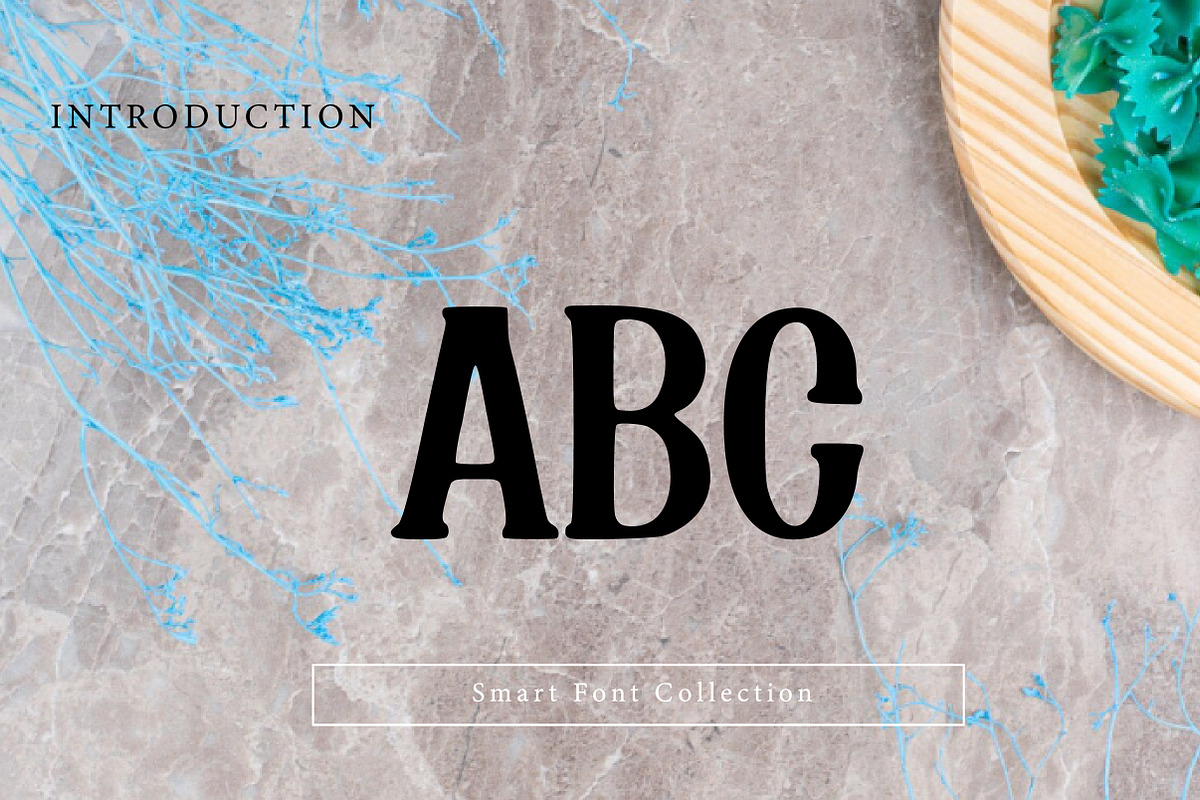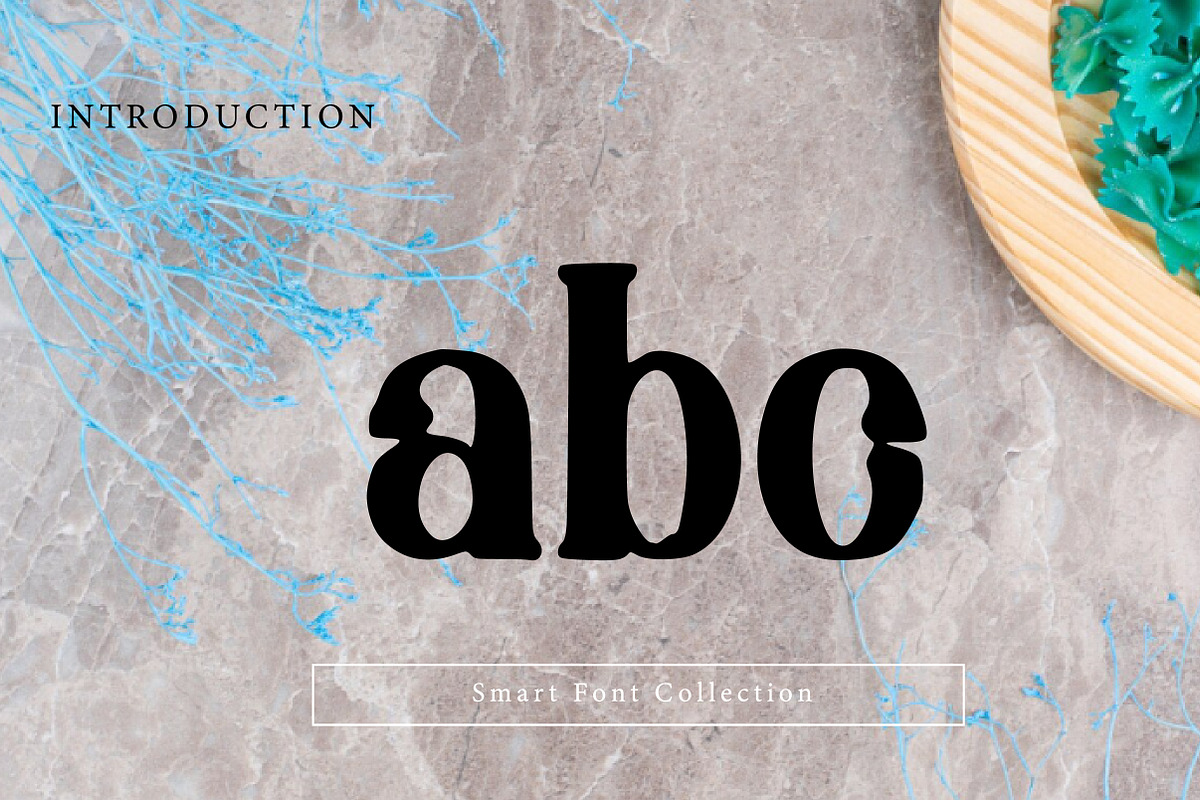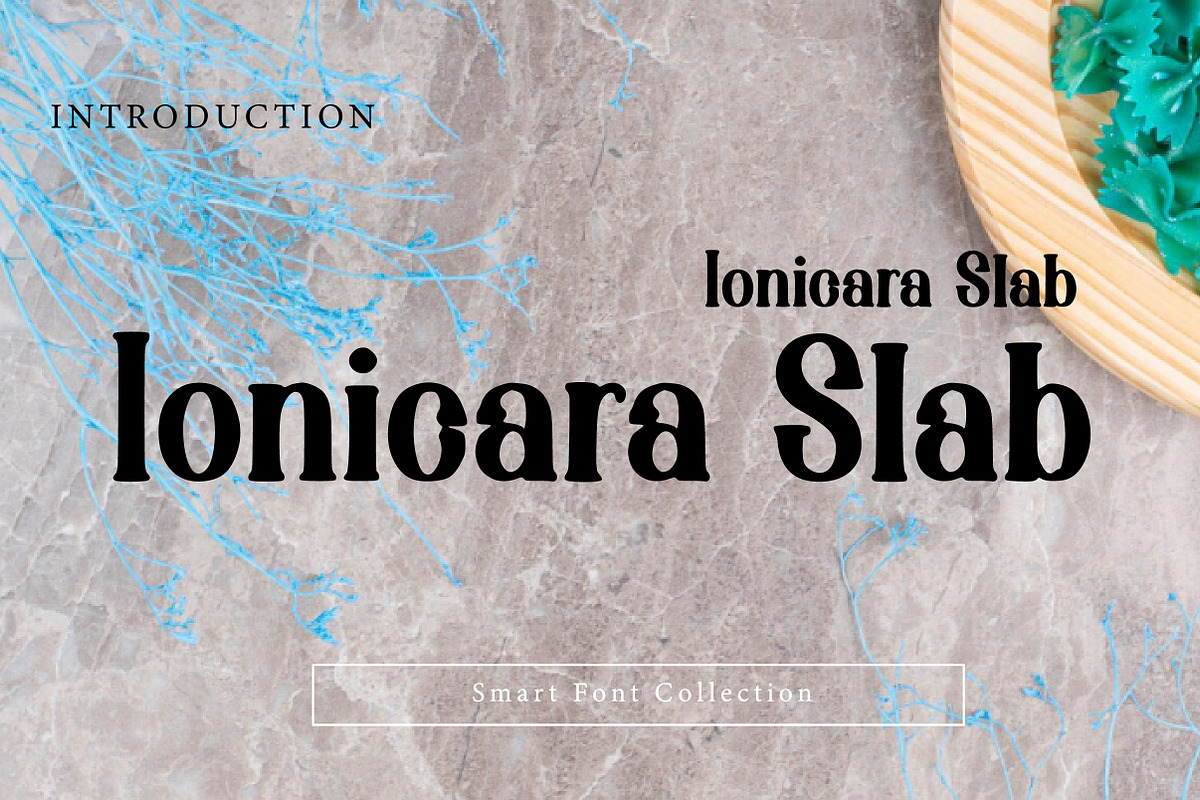
Ionicara Slab
Ionicara Slab is a bold and elegant slab serif display font designed with strong structure and refined classic character. Featuring thick strokes, confident slab serifs, and clean readable letterforms, this font is perfect for logos, branding, packaging, posters, headlines, signage, editorial layouts, and modern vintage designs. Ionicara Slab delivers a timeless and premium feel with powerful impact, making it ideal for sophisticated branding and bold typography projects.